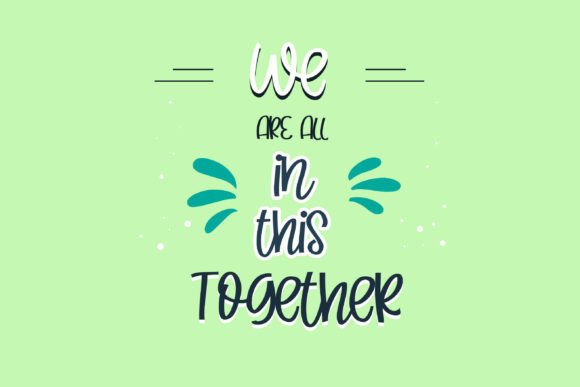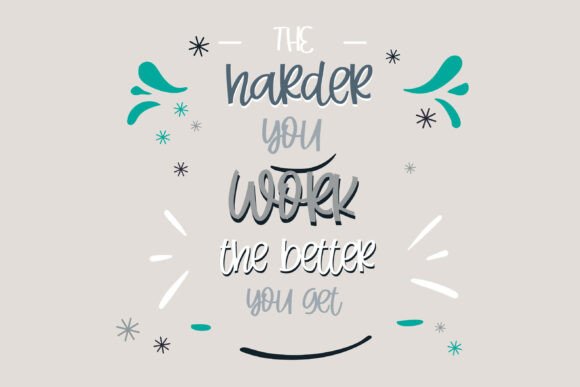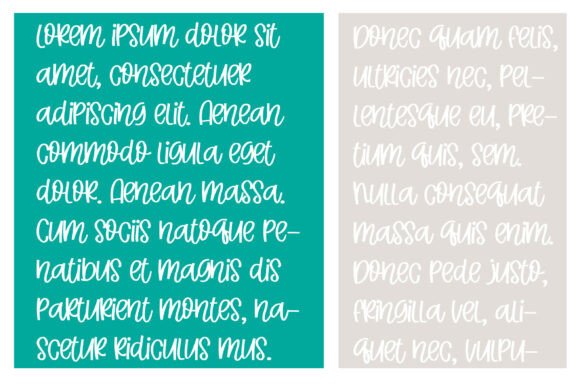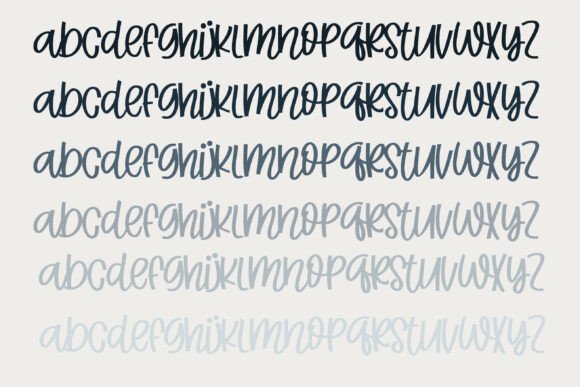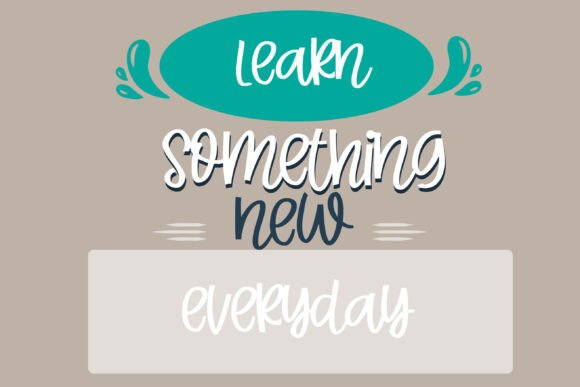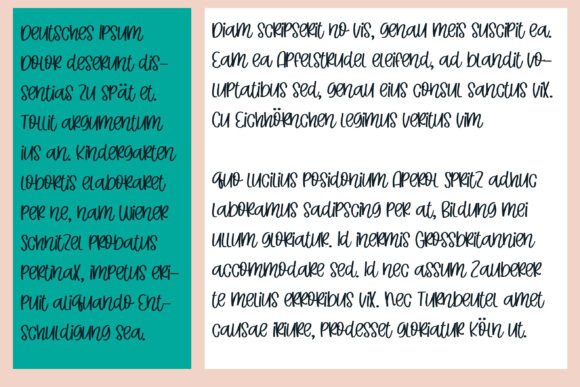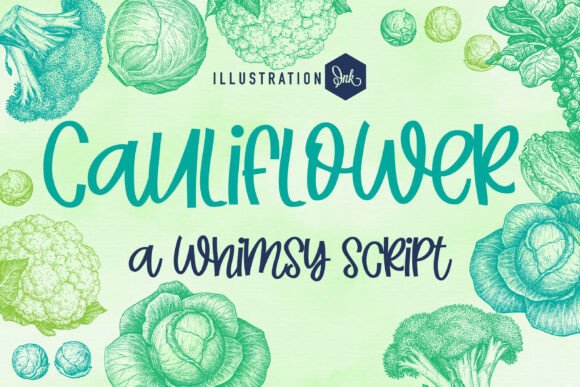
Introducing Cauliflower Font: The Fresh and Fun Whimsy Script Font
Are you tired of using the same old fonts for your designs? Look no further than Cauliflower Font, a fresh and fun whimsy script font that’s sure to bring a lively, hand-lettered touch to your work. With its organic flow and bold character, Cauliflower Font is perfect for designers and crafters looking to add a touch of personality to their projects.
What is Cauliflower Font?
Cauliflower Font is a whimsy script font that’s designed to evoke a sense of playfulness and creativity. Its bold, hand-lettered style makes it perfect for use in a variety of applications, from food packaging and branding to greeting cards and other creative projects. Whether you’re a designer, crafter, or DIY enthusiast, Cauliflower Font is sure to inspire your next project.
Key Features of Cauliflower Font
So what sets Cauliflower Font apart from other fonts? Here are just a few of its key features:
• Organic flow: Cauliflower Font has a natural, hand-lettered feel that’s perfect for creating a sense of warmth and personality in your designs.
• Bold character: With its bold, confident lines, Cauliflower Font is sure to make a statement in any design.
• Whimsy style: Cauliflower Font has a playful, whimsical style that’s perfect for adding a touch of fun and creativity to your projects.
• Versatility: Cauliflower Font can be used in a wide range of applications, from food packaging and branding to greeting cards and other creative projects.
Uses for Cauliflower Font
So what can you use Cauliflower Font for? The possibilities are endless! Here are just a few ideas to get you started:
• Food packaging: Cauliflower Font is perfect for use in food packaging, adding a touch of personality and whimsy to labels, packaging, and branding.
• Branding: Use Cauliflower Font to create a unique and memorable brand identity that’s sure to stand out.
• Greeting cards: Add a touch of personality to your greeting cards with Cauliflower Font, perfect for birthdays, holidays, and other special occasions.
• Creative projects: Cauliflower Font is perfect for use in a wide range of creative projects, from art journals and scrapbooking to DIY crafts and more.
Why Choose Cauliflower Font?
So why choose Cauliflower Font for your next project? Here are just a few reasons:
• Unique style: Cauliflower Font has a unique and distinctive style that’s sure to set your designs apart.
• High-quality design: Cauliflower Font is designed to high standards, ensuring that your designs look professional and polished.
In conclusion, Cauliflower Font is a fresh and fun whimsy script font that’s perfect for designers and crafters looking to add a touch of personality to their projects. With its organic flow, bold character, and whimsy style, Cauliflower Font is sure to inspire your next project. Whether you’re looking to create food packaging, branding, greeting cards, or other creative projects, Cauliflower Font is the perfect choice.
Tips and Tricks for Using Cauliflower Font
Here are a few tips and tricks for getting the most out of Cauliflower Font:
• Experiment with different sizes: Cauliflower Font looks great in a variety of sizes, from large and bold to small and delicate.
• Pair it with other fonts: Cauliflower Font pairs well with a variety of other fonts, including serif and sans-serif fonts.
• Use it in combination with images: Cauliflower Font looks great in combination with images, adding a touch of personality and whimsy to your designs.